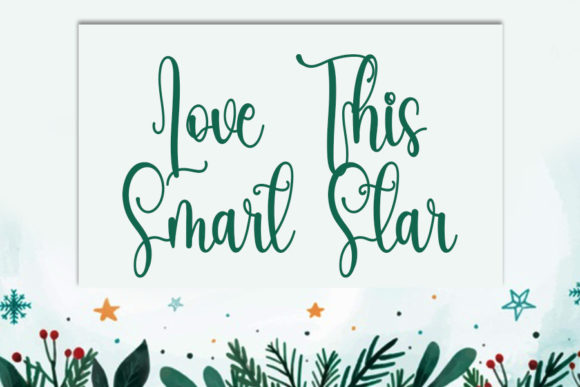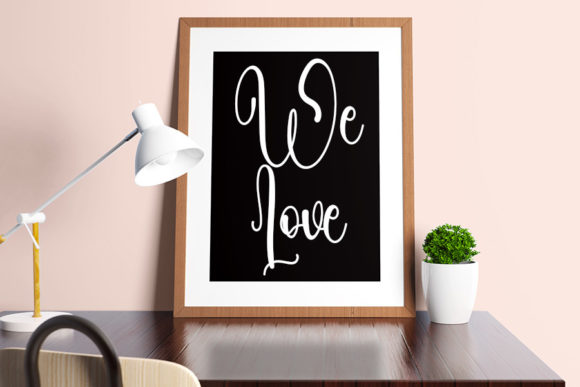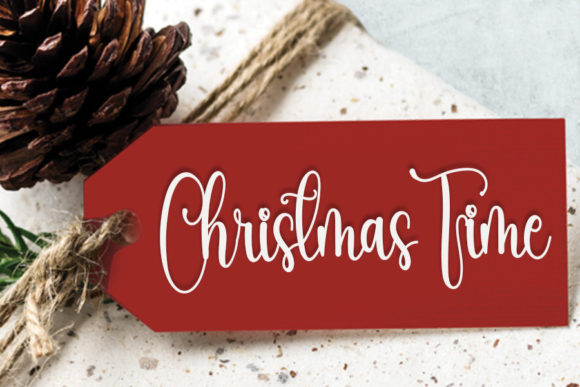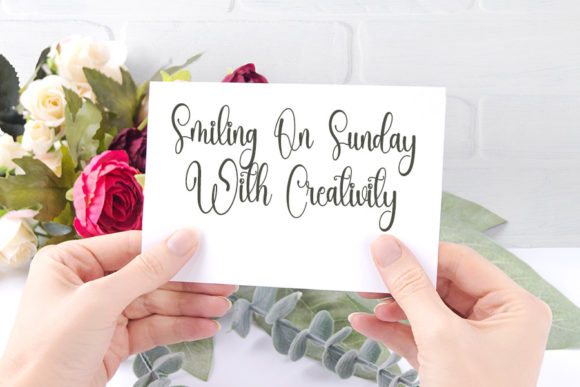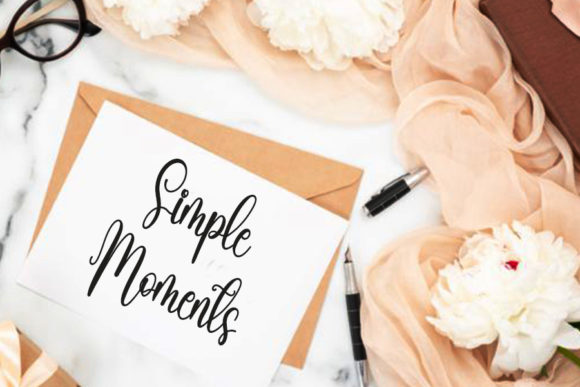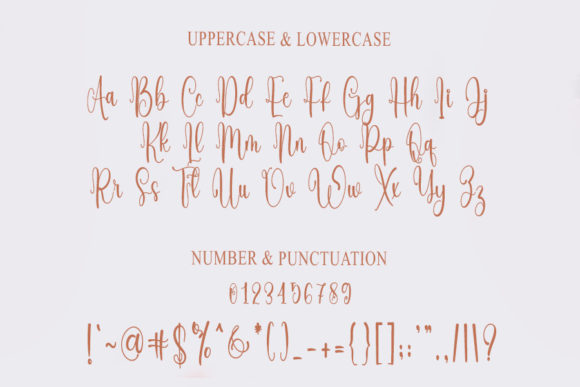
Introducing Heartly Font: Elevate Your Designs with Timeless Elegance
Are you on the hunt for a font that exudes sophistication, elegance, and a touch of classic charm? Look no further than Heartly Font, a stylish handwritten typeface that is sure to elevate your designs to new heights. Inspired by timeless classic calligraphy, Heartly boasts a contemporary atmosphere and impeccable form, making it the perfect addition to any design project.
The Story Behind Heartly Font
Heartly Font is a carefully crafted typeface that draws inspiration from the world of classic calligraphy. With its balanced and varied letterforms, this font is designed to bring a touch of sophistication and refinement to your designs. Whether you’re working on a branding project, a wedding invitation, or a packaging design, Heartly Font is the perfect choice for designers and crafters looking to add a dash of elegance to their work.
Key Features of Heartly Font
- Stylish Handwritten Design: Heartly Font boasts a beautiful, handwritten design that is sure to capture the attention of your audience.
- Contemporary Atmosphere: With its clean lines and modern aesthetic, Heartly Font brings a fresh and contemporary feel to your designs.
- Impeccable Form: Each letterform in Heartly Font has been carefully crafted to ensure that it is perfectly proportioned and balanced.
- Balanced and Varied: Heartly Font features a range of letterforms, ensuring that your designs always look interesting and dynamic.
Why Choose Heartly Font?
So why should you choose Heartly Font for your next design project? Here are just a few compelling reasons:
- Versatility: Heartly Font is incredibly versatile, making it suitable for a wide range of design projects, from branding and advertising to packaging and editorial design.
- Elegance: With its classic calligraphy-inspired design, Heartly Font brings a touch of elegance and sophistication to any design project.
- Easy to Read: Despite its elegant design, Heartly Font is incredibly easy to read, making it perfect for body text and headlines.
How to Use Heartly Font in Your Designs
Using Heartly Font in your designs is incredibly easy. Here are a few tips to get you started:
- Pair it with Other Fonts: Heartly Font pairs beautifully with other fonts, so don’t be afraid to experiment with different combinations.
- Use it for Headlines and Titles: Heartly Font is perfect for headlines and titles, where its elegant design can really shine.
- Add a Personal Touch: Use Heartly Font to add a personal touch to your designs, whether you’re creating a custom logo or a one-of-a-kind invitation.
Heartly Font in the World of Design
Heartly Font is more than just a typeface – it’s a design tool that can help you to create stunning, professional-grade designs. Whether you’re a seasoned designer or a crafty DIY enthusiast, Heartly Font is the perfect addition to your design toolkit.